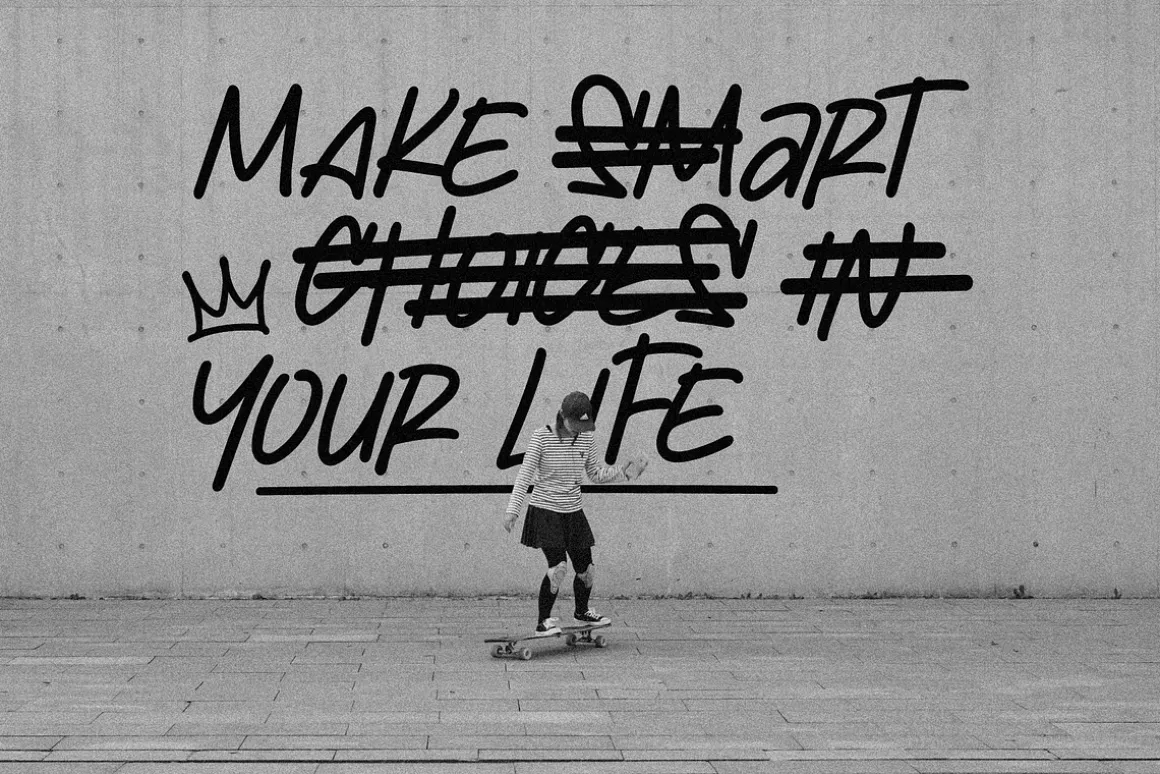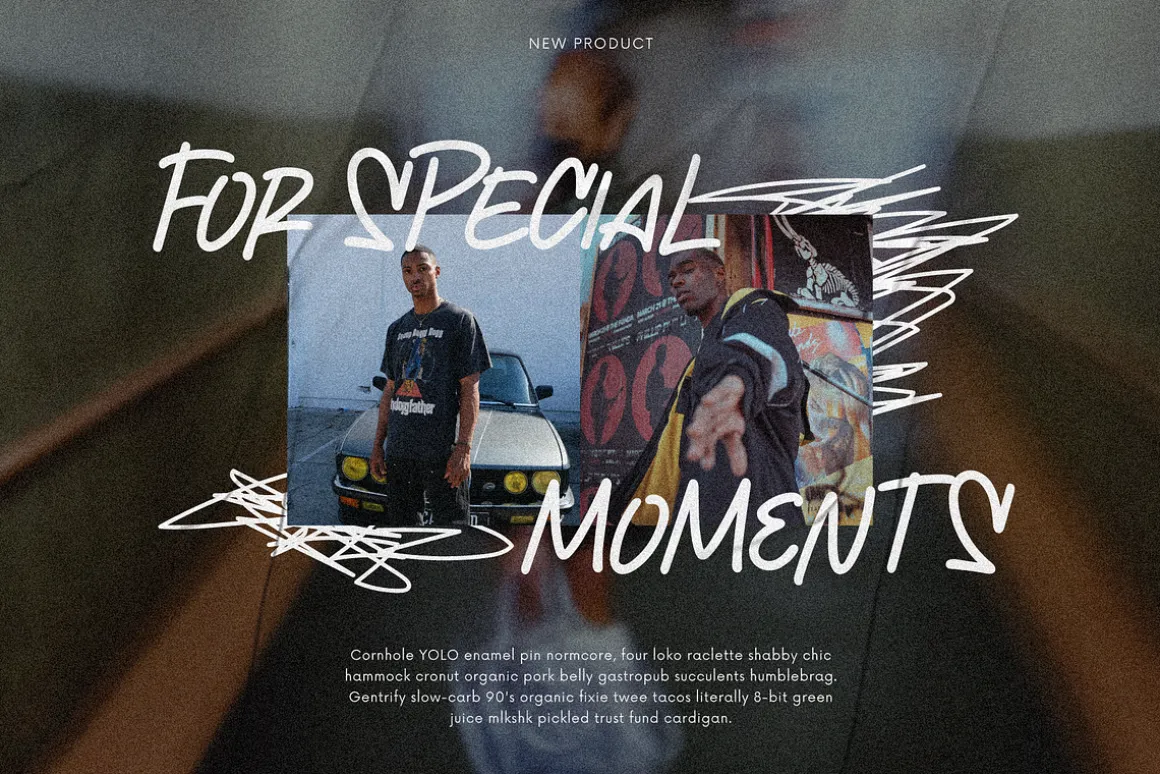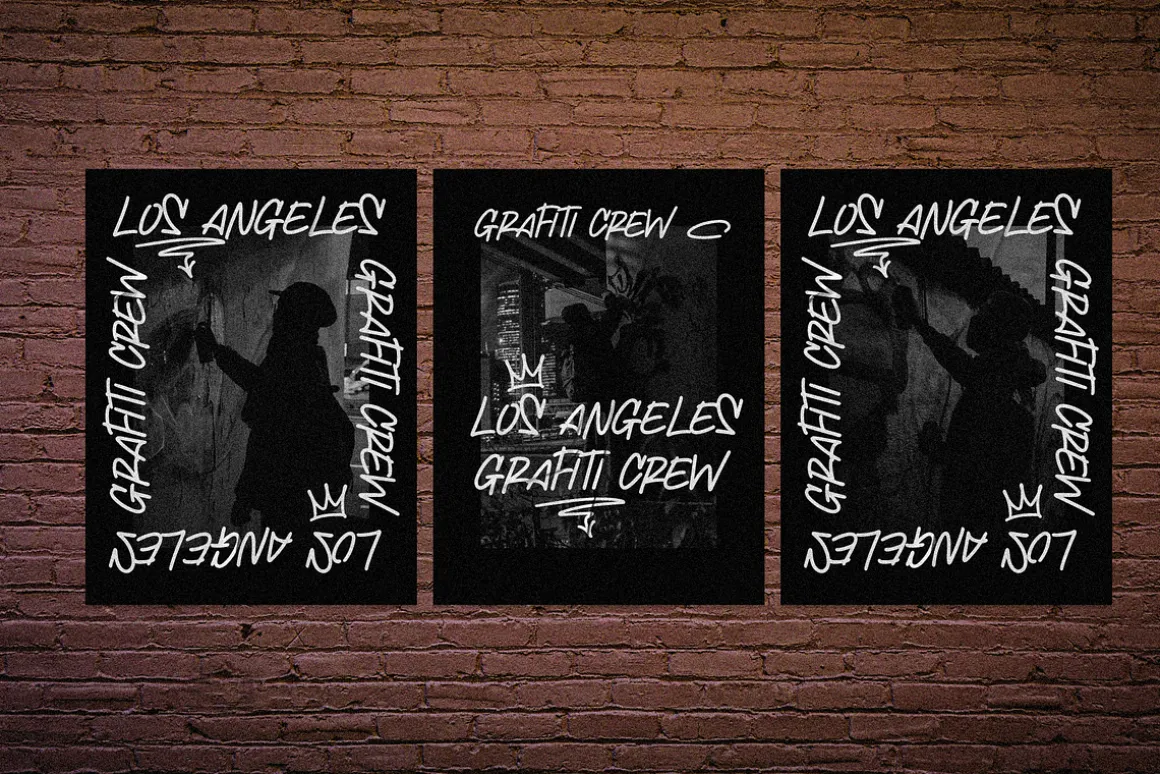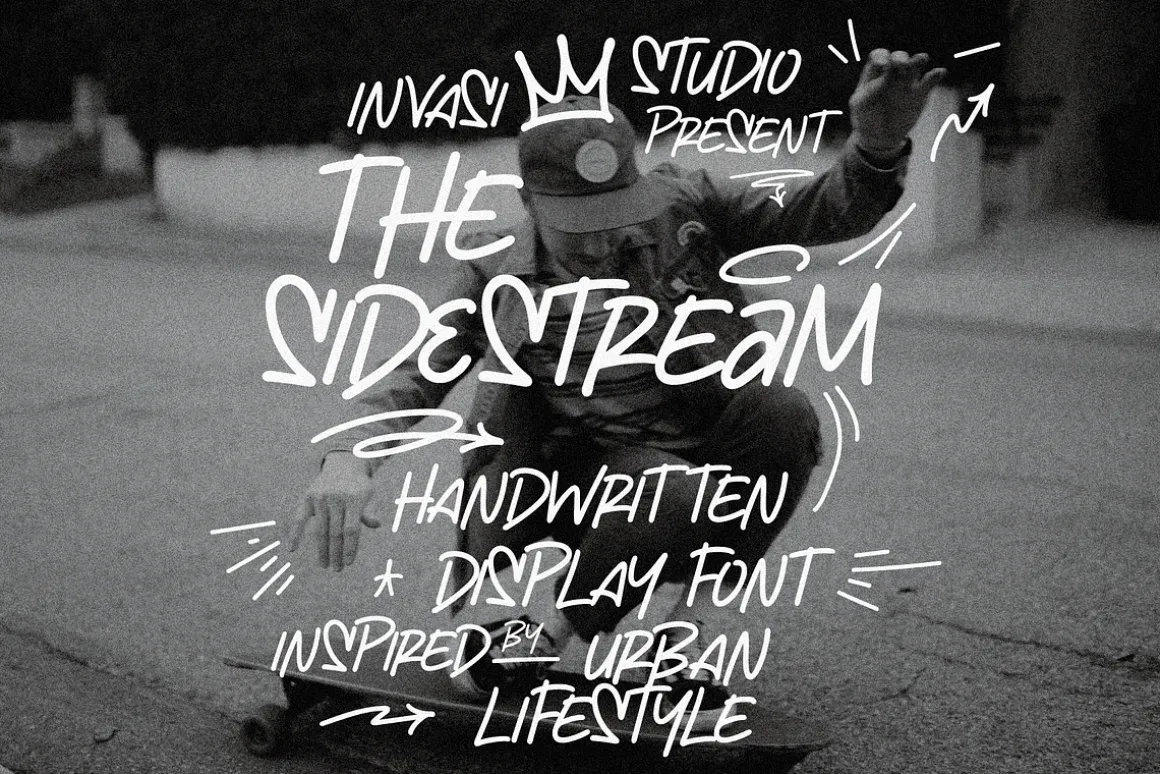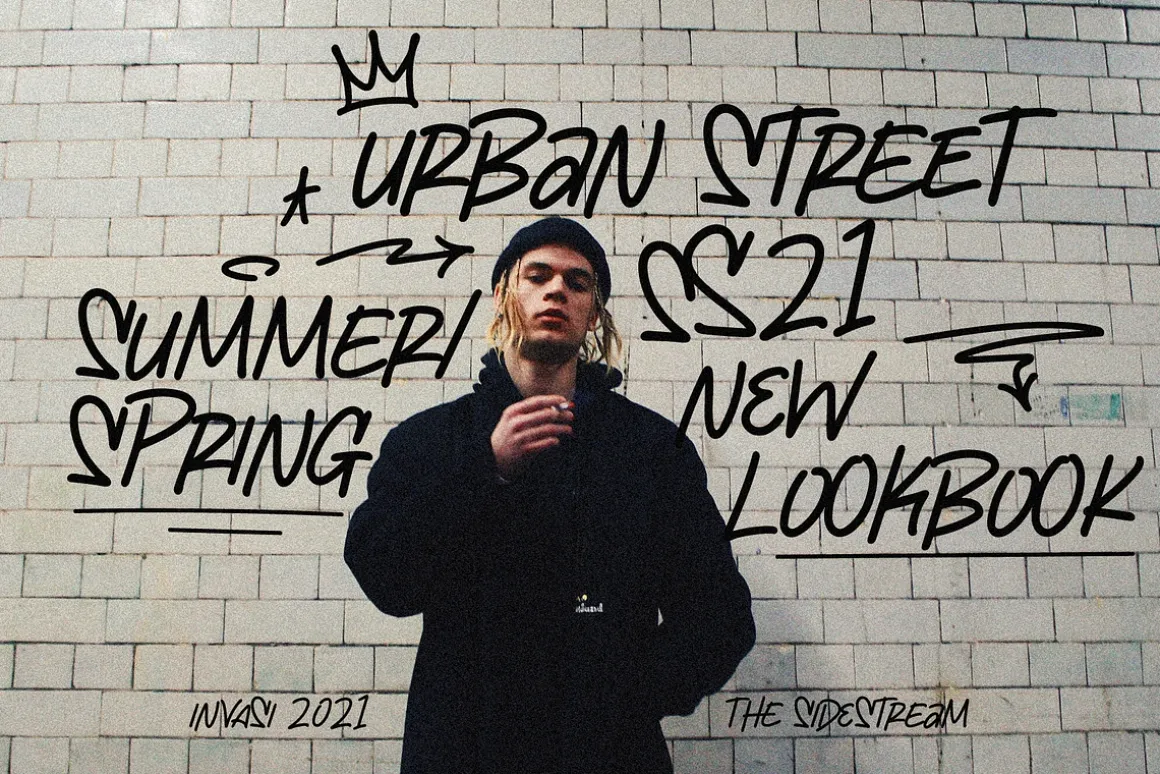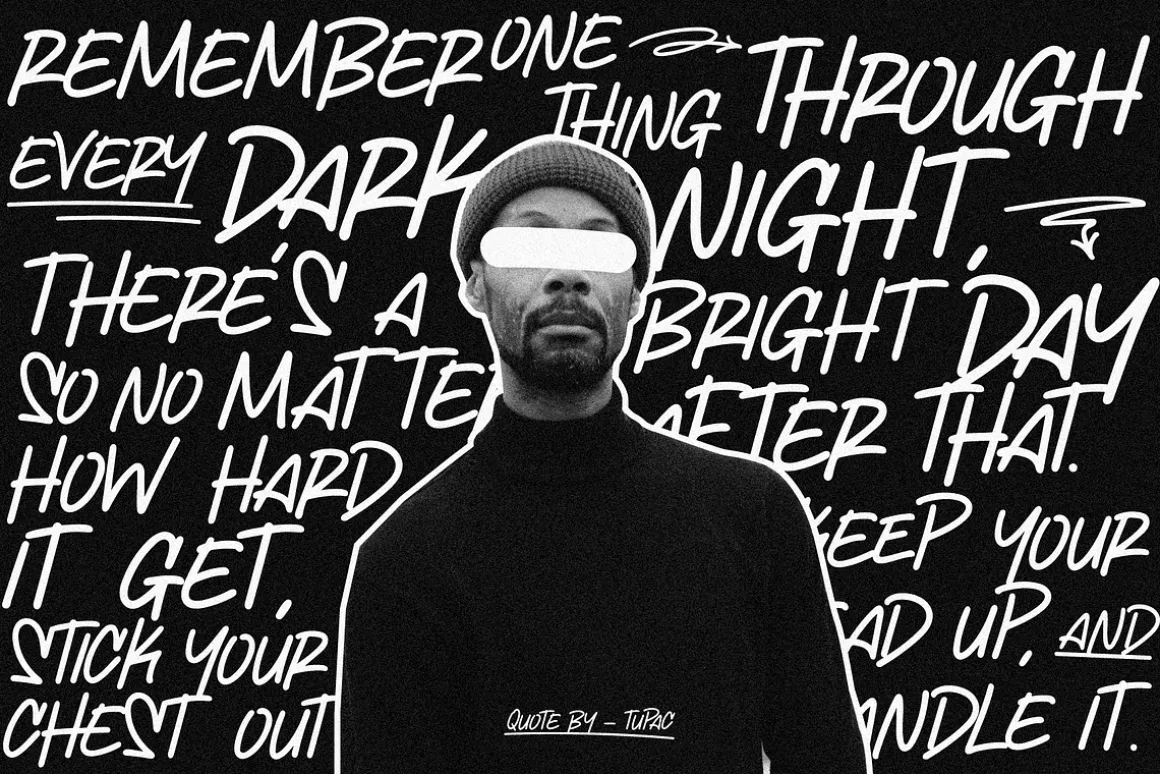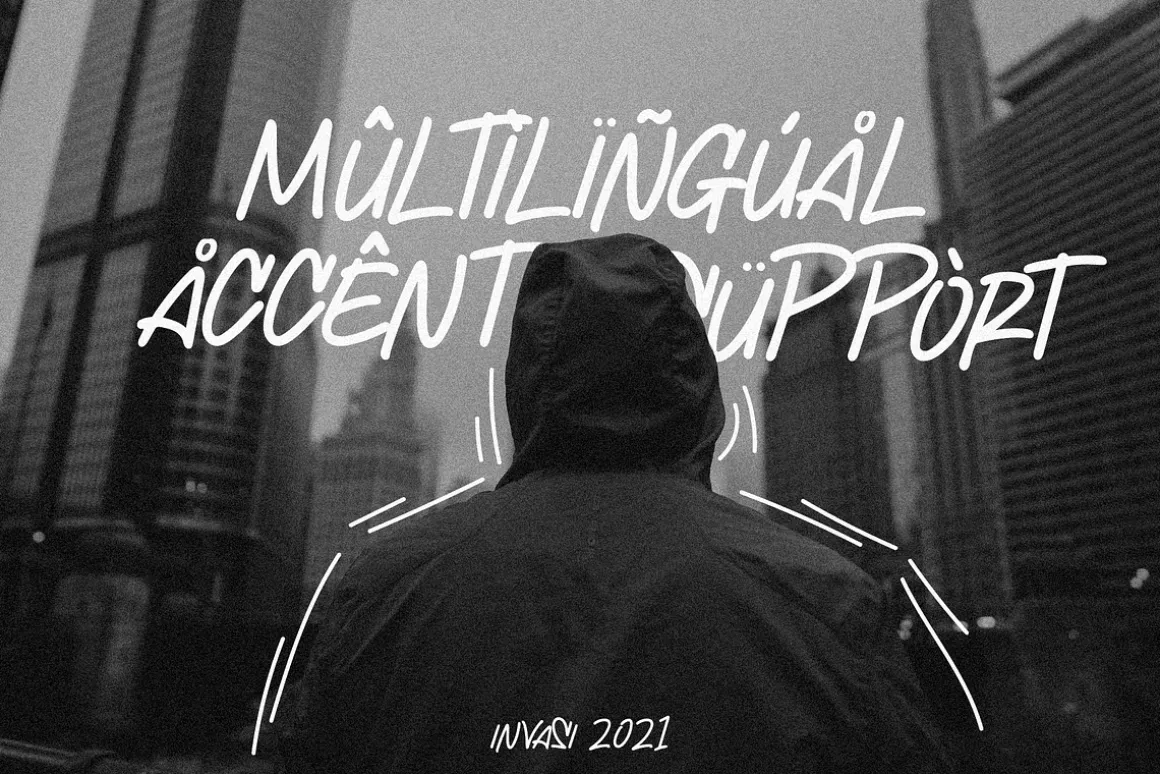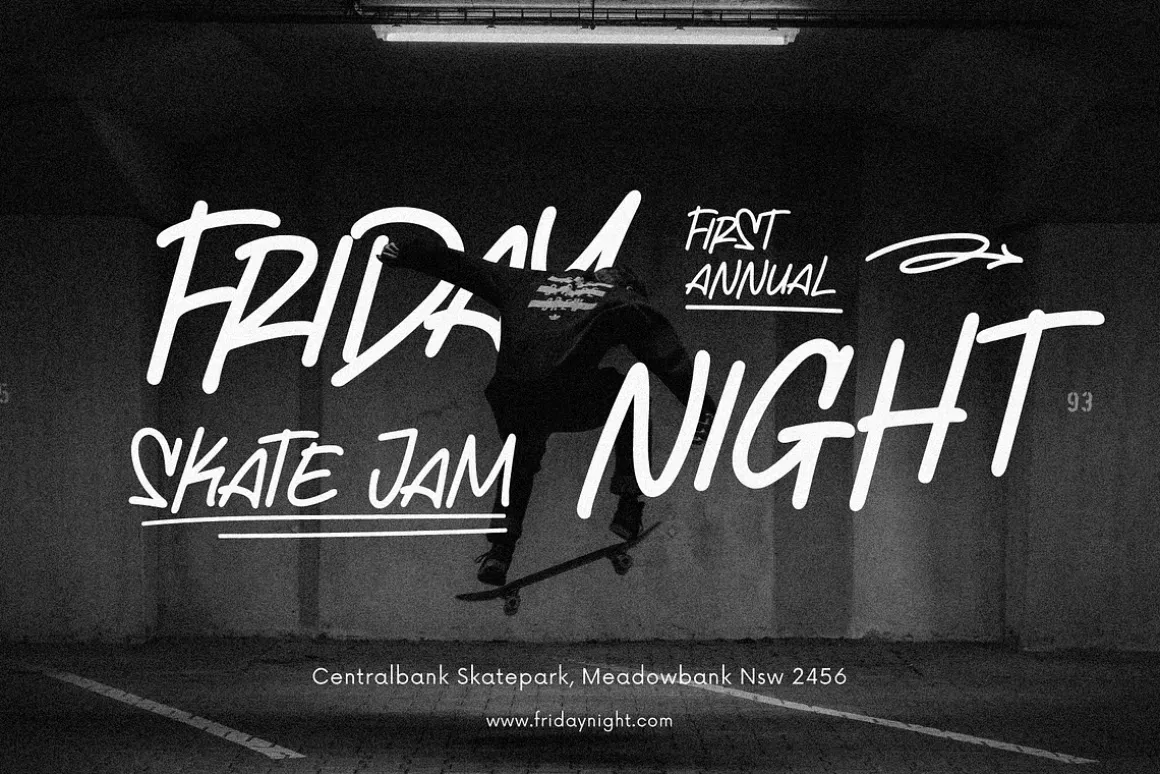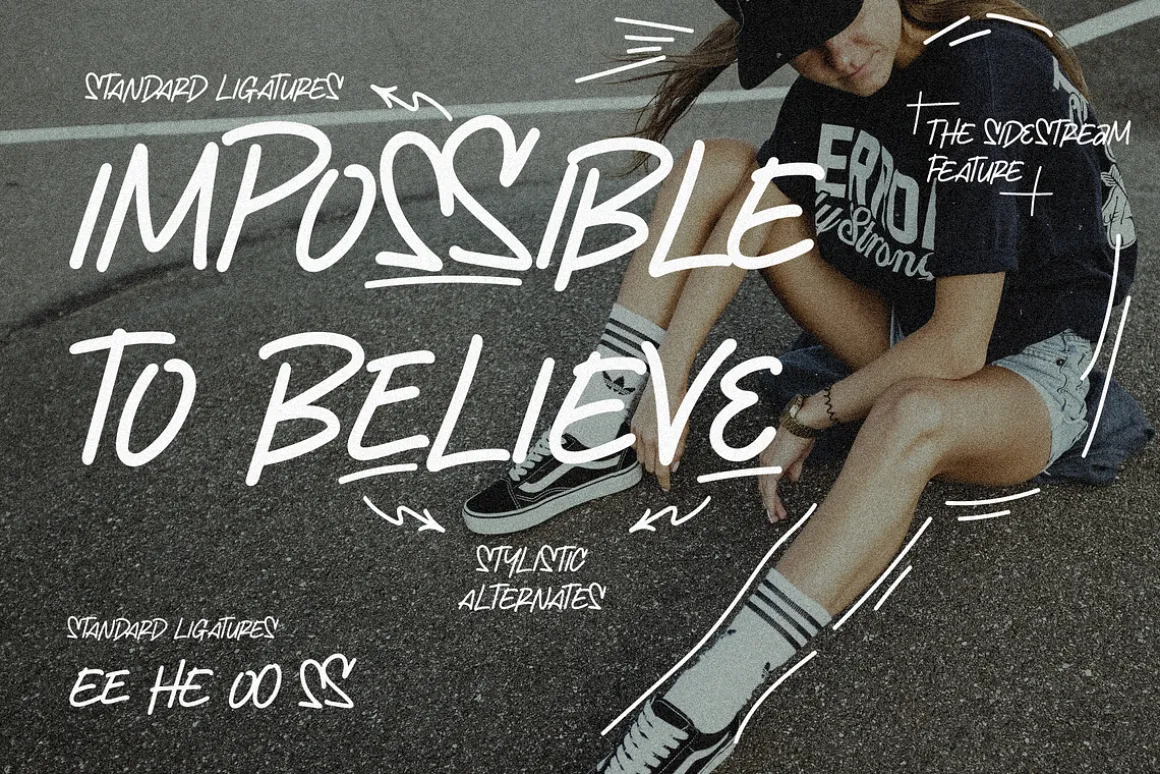
The Sidestream is Handwritten Display font inspired by the urban lifestyle.This font features a swash font which is inspired by the graffiti style.
It can be easily matched to an amazingly broad range of projects, so incorporate it into your creative concepts and see how it elevates them! This font is excellent for headlines, flyers, greeting cards, product packaging, book covers, printed quotes, logotype, and album covers, among many other things. Because this font is PUA encoded, you can easily access all of the glyphs and swashes!
- Multilanguage
- Punctuation
- Stylistic Alternates
- Standard Ligatures